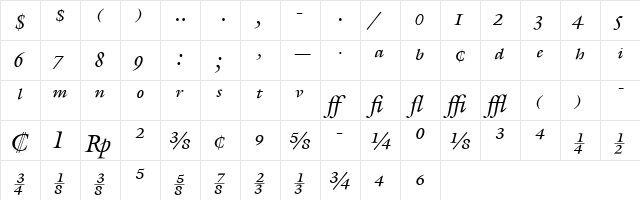
GalliardExpCC Regular
Design Context for GalliardExpCC Typeface
GalliardExpCC takes a measured approach to typography — its balanced proportions and neutral character make it a reliable workhorse for both digital and print work.